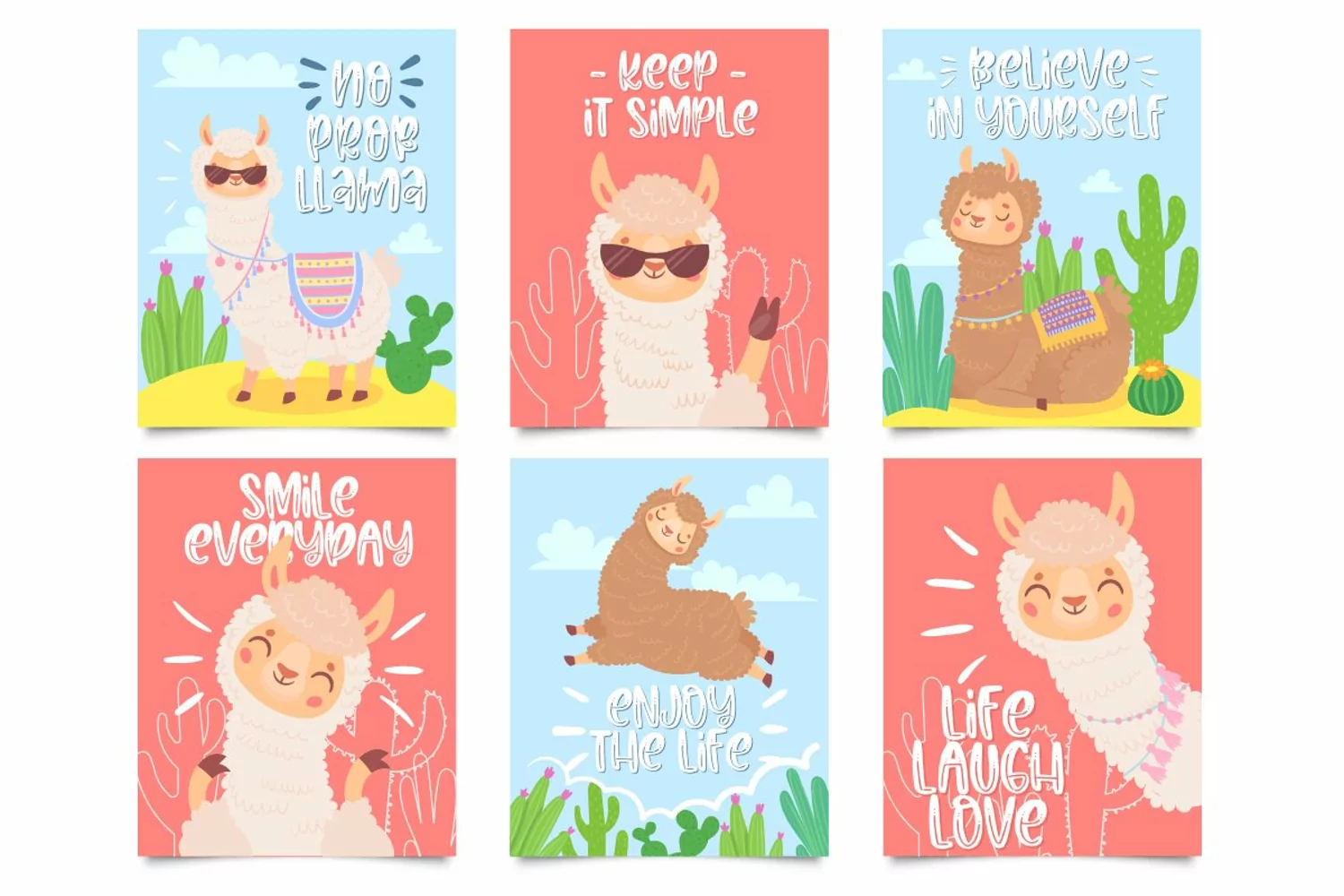
Introducing " Cake Bakery "
Cake Bakery ia a Quirky & Inline font
You Can Mix And Match for Your Awesome Project
This fonts is ideal for crafting, branding and decorate your any project. This fonts are perfect for wedding invitation or your blog. Also with their help, you can create a logo or beautiful frame for your home. Or just use for your business, book covers, stationery, marketing, magazines and more.